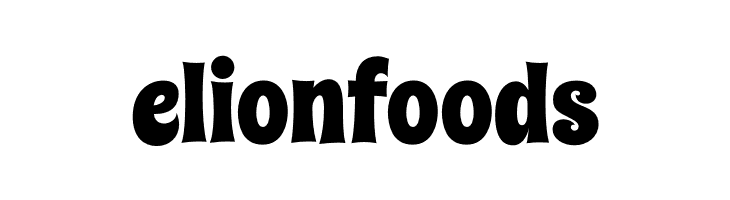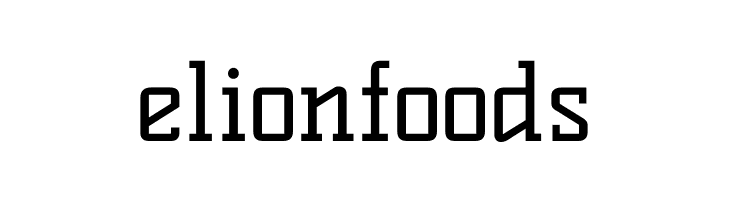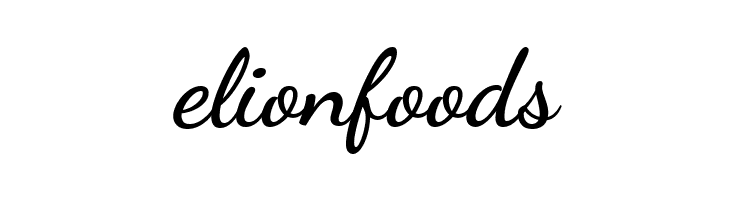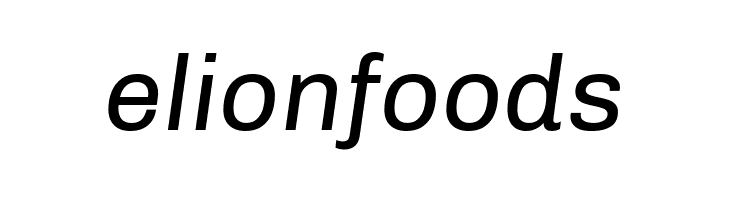
A bold, playful font with a quirky and whimsical style.
) A modern slab serif font with strong lines and prominent serifs.
) A modern geometric slab serif font with bold, structured characters.
A lively and elegant bold script font with flowing cursive letterforms.
A clean, modern sans-serif font with balanced proportions and consistent stroke width.
A bold, modern font with thick strokes and a geometric style.
A modern, italic sans-serif font with clean lines and a dynamic slant.
A bold, classic serif font with high contrast and strong serifs.
A classic serif font with calligraphic influences and elegant, flowing forms.
A bold, hand-drawn font with an ancient Roman inscription style.